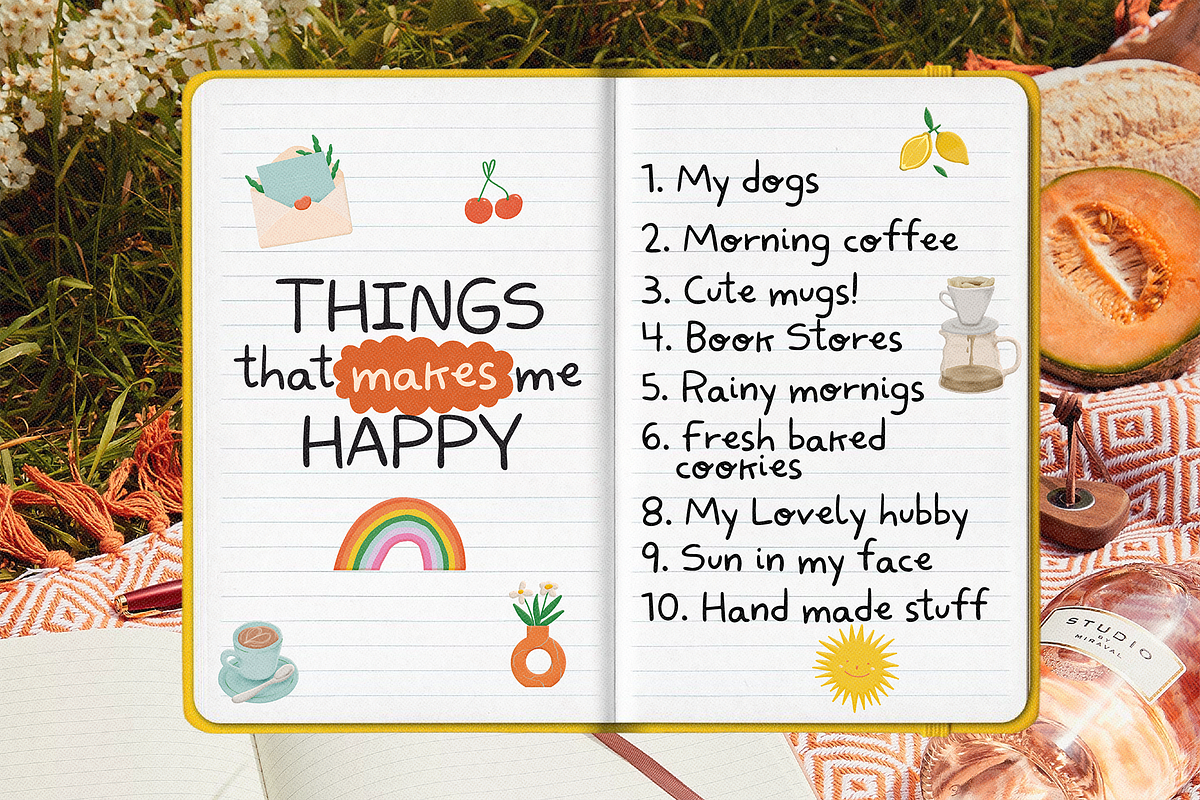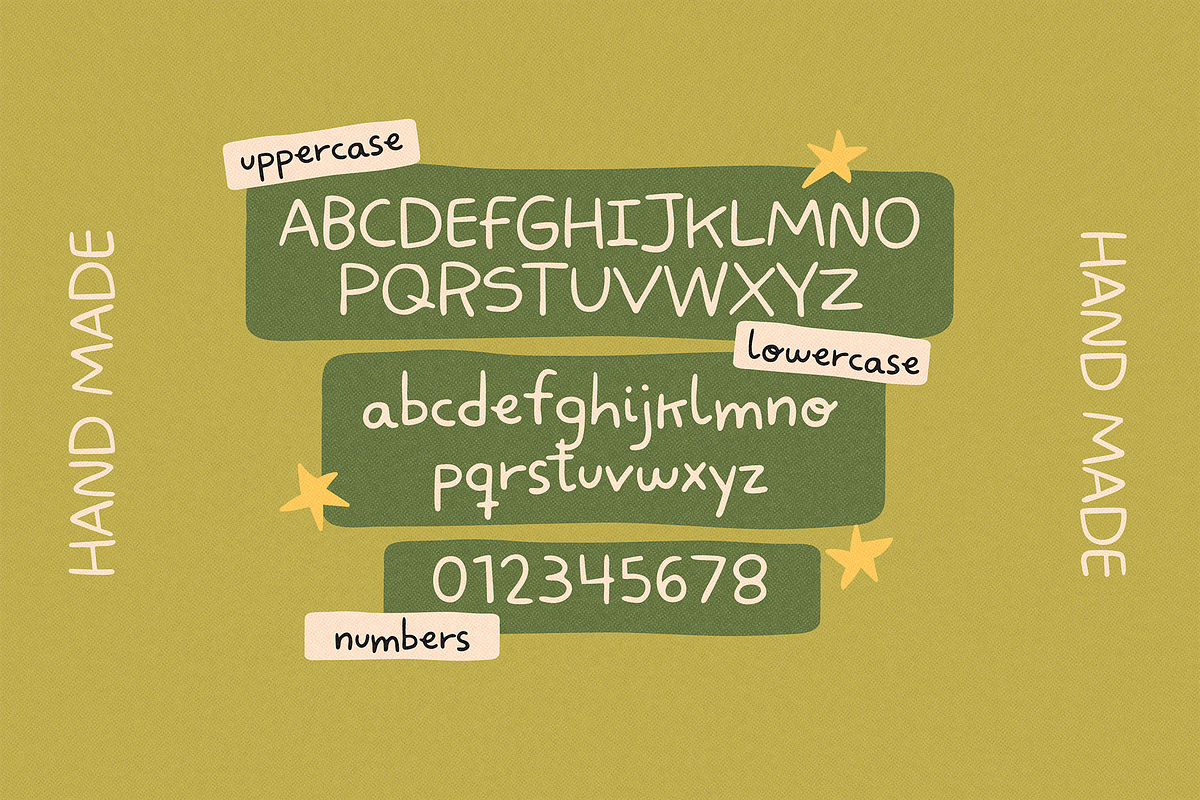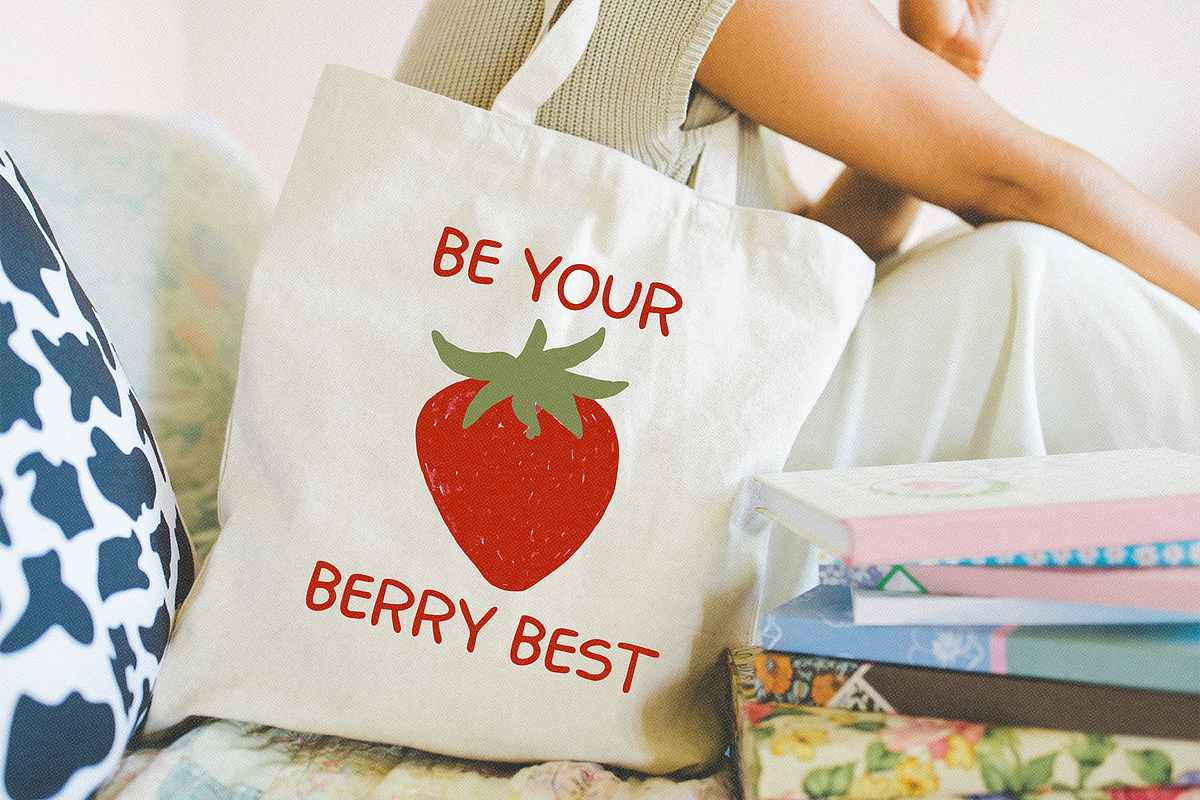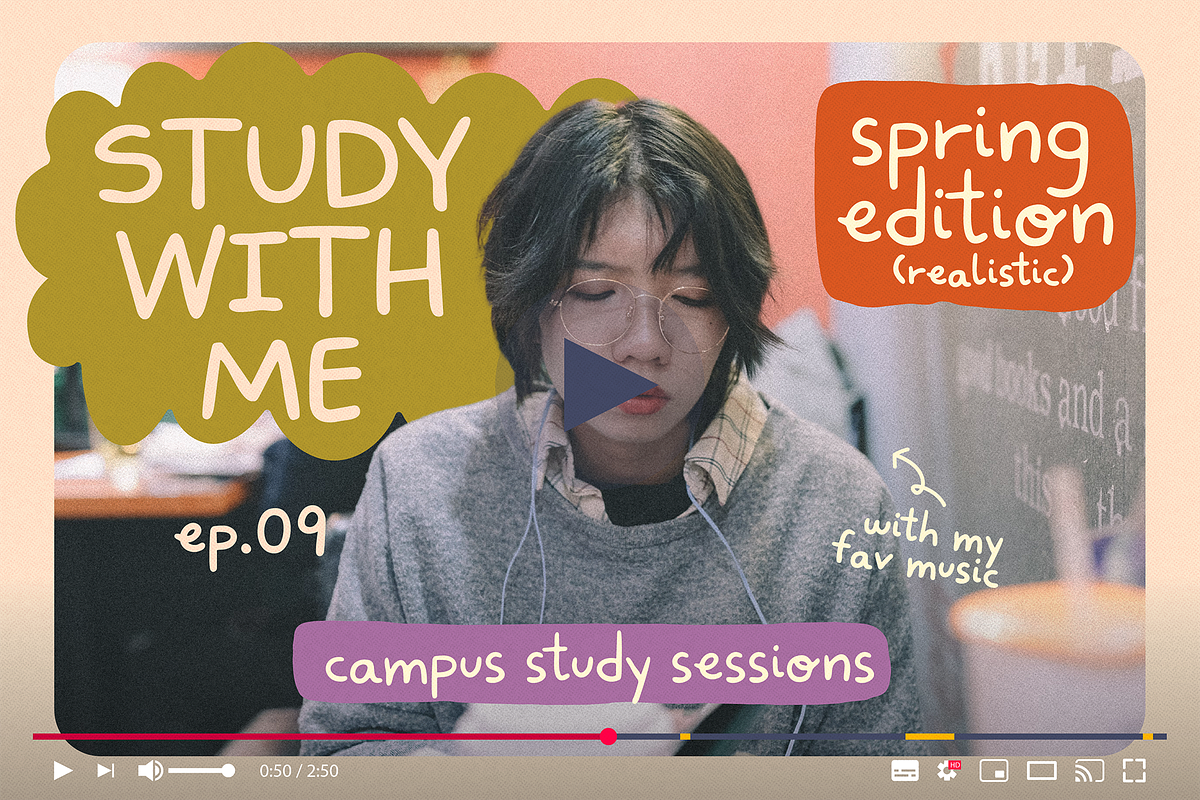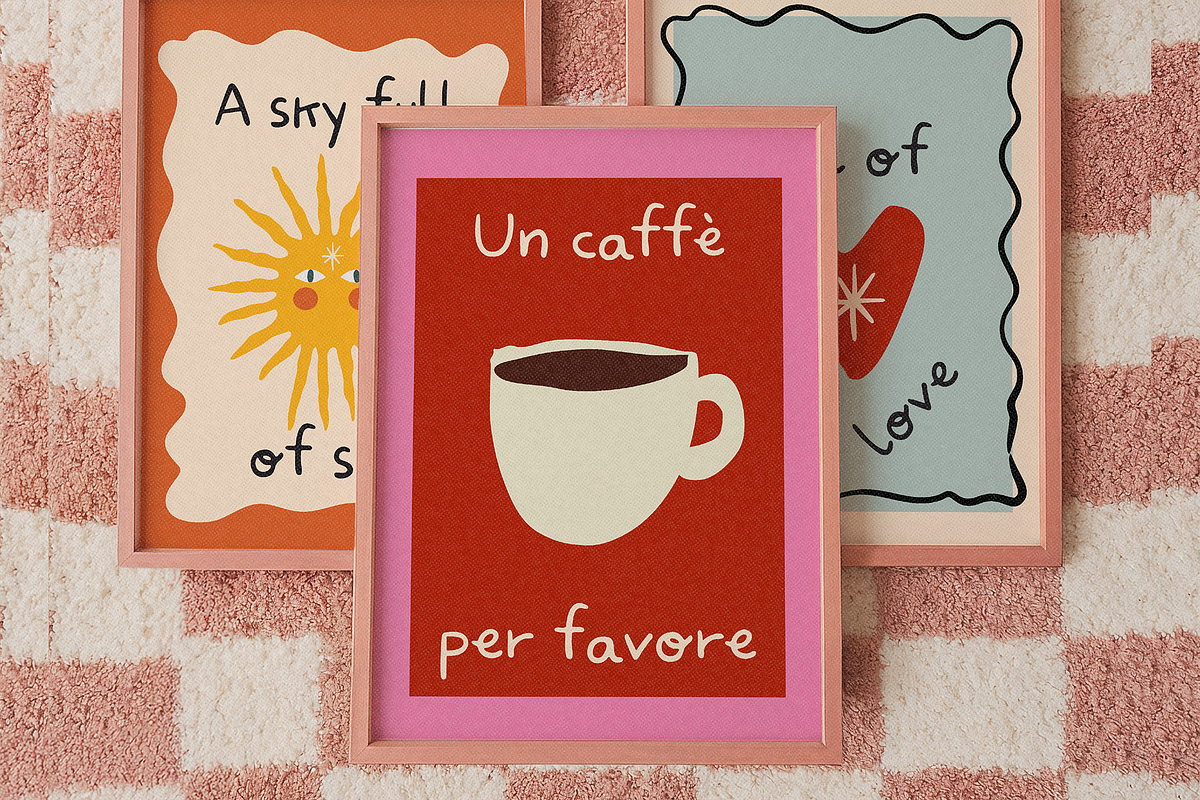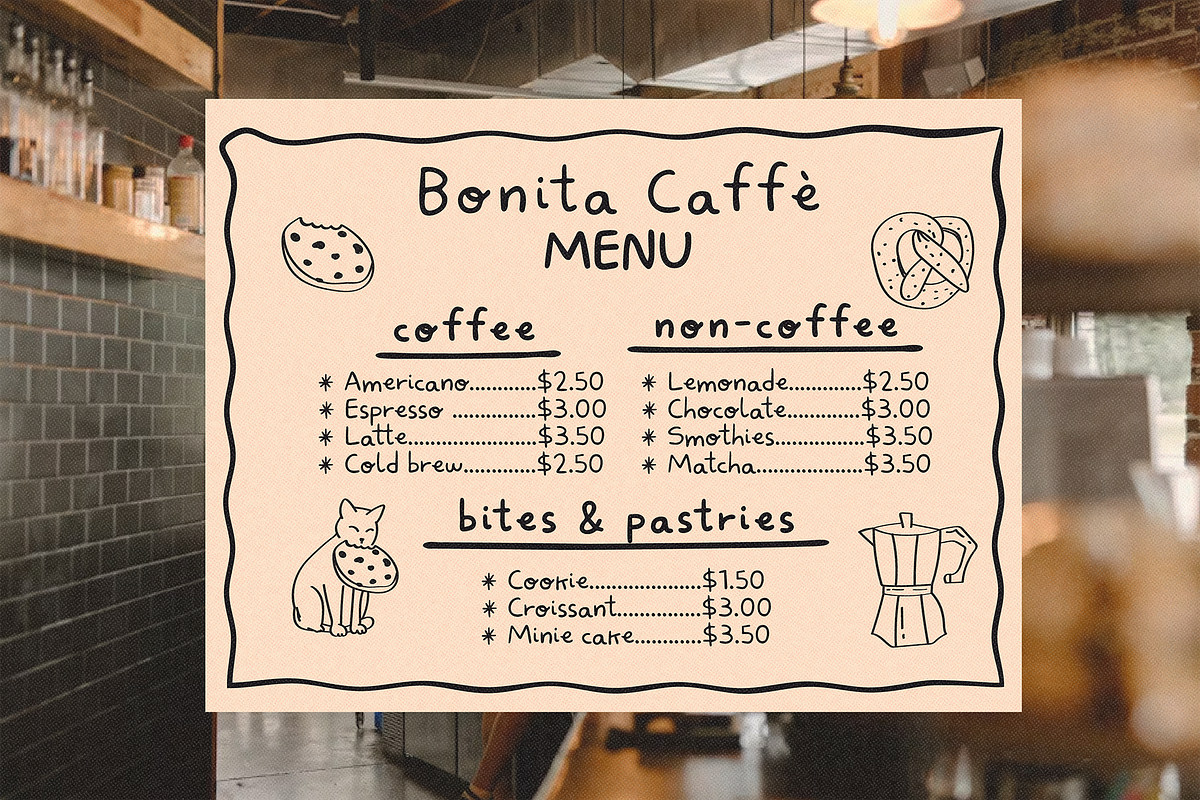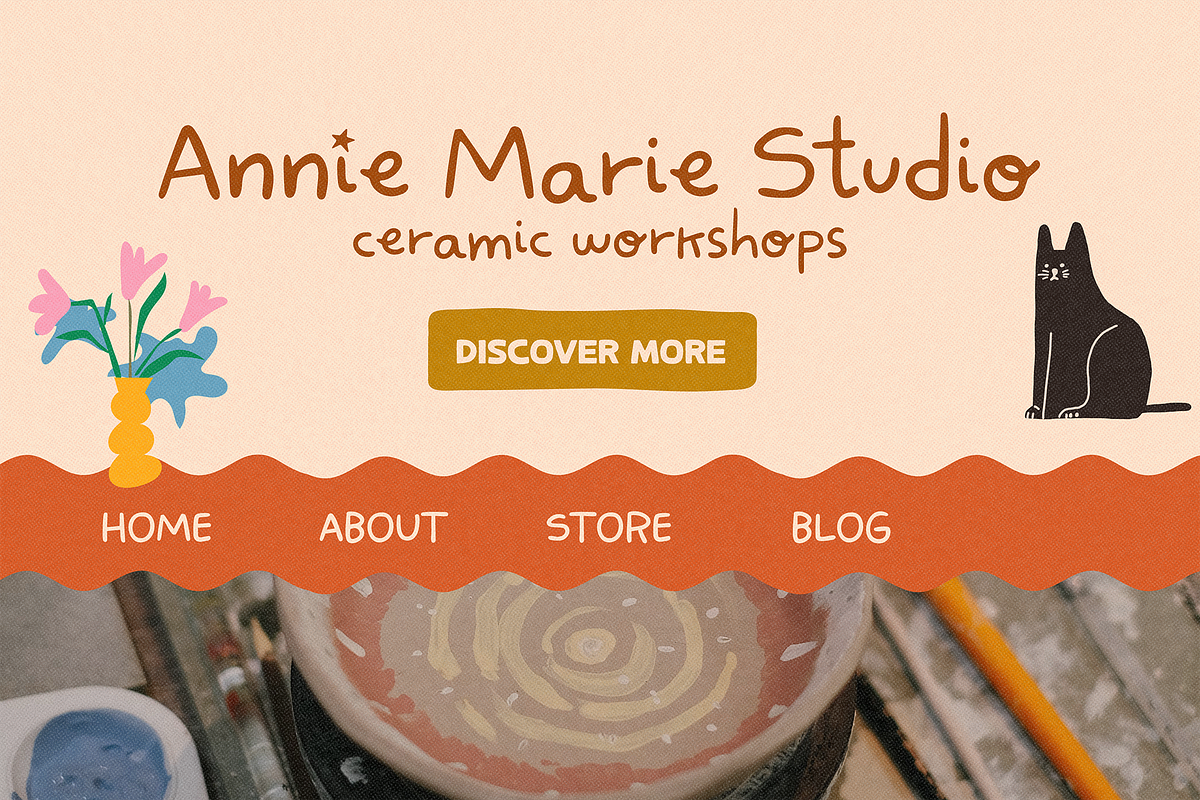
Vanilla Cake – Cute Font
Vanilla Cake is a quirky, hand-drawn font full of charm and personality. Its imperfect strokes and playful style mimic the real handwriting of an ordinary person, making it feel natural, and fun!
This font adds an organic, homemade touch to your creations. It's simple, a little messy, and 100% cute great for digital notes & study notes, Instagram posts & quotes, stationery, posters & more!
✷ Use the 2 symbols included to make cute/cool compositions.
Left curly bracket { – i heart
Right curly bracket } – i star
🖐️ Note: Vanilla Cake is hand-drawn, so don't expect perfection — that's the magic of it! Each letter feels unique and spontaneous, just like handwritten notes.